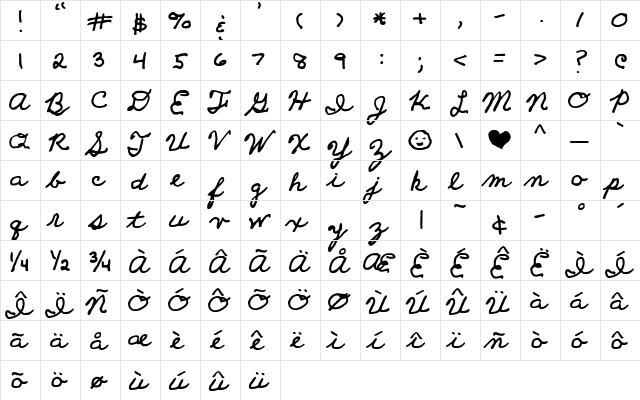
FG Siv Regular
Design Context for FG Siv Typeface
FG Siv is a composed and adaptable typeface that performs quietly and consistently across a wide range of design contexts.